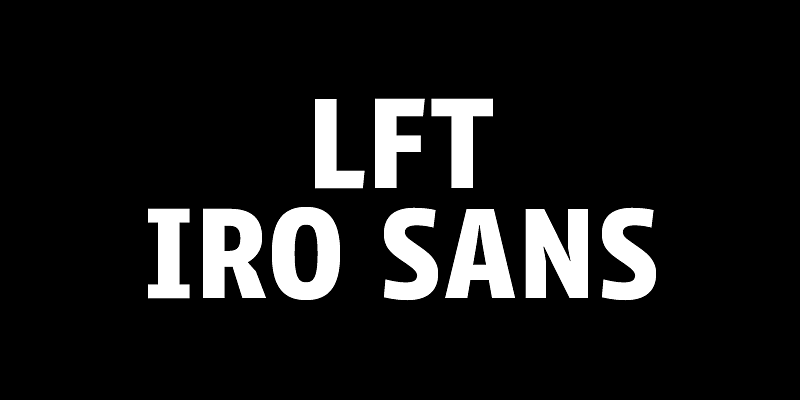
LFT Iro Sans specimen
LFT Iro Sans
Distinct, complex challenges — branding, wayfinding, pictographic language, and deft editorial use — solved by one expansive family.